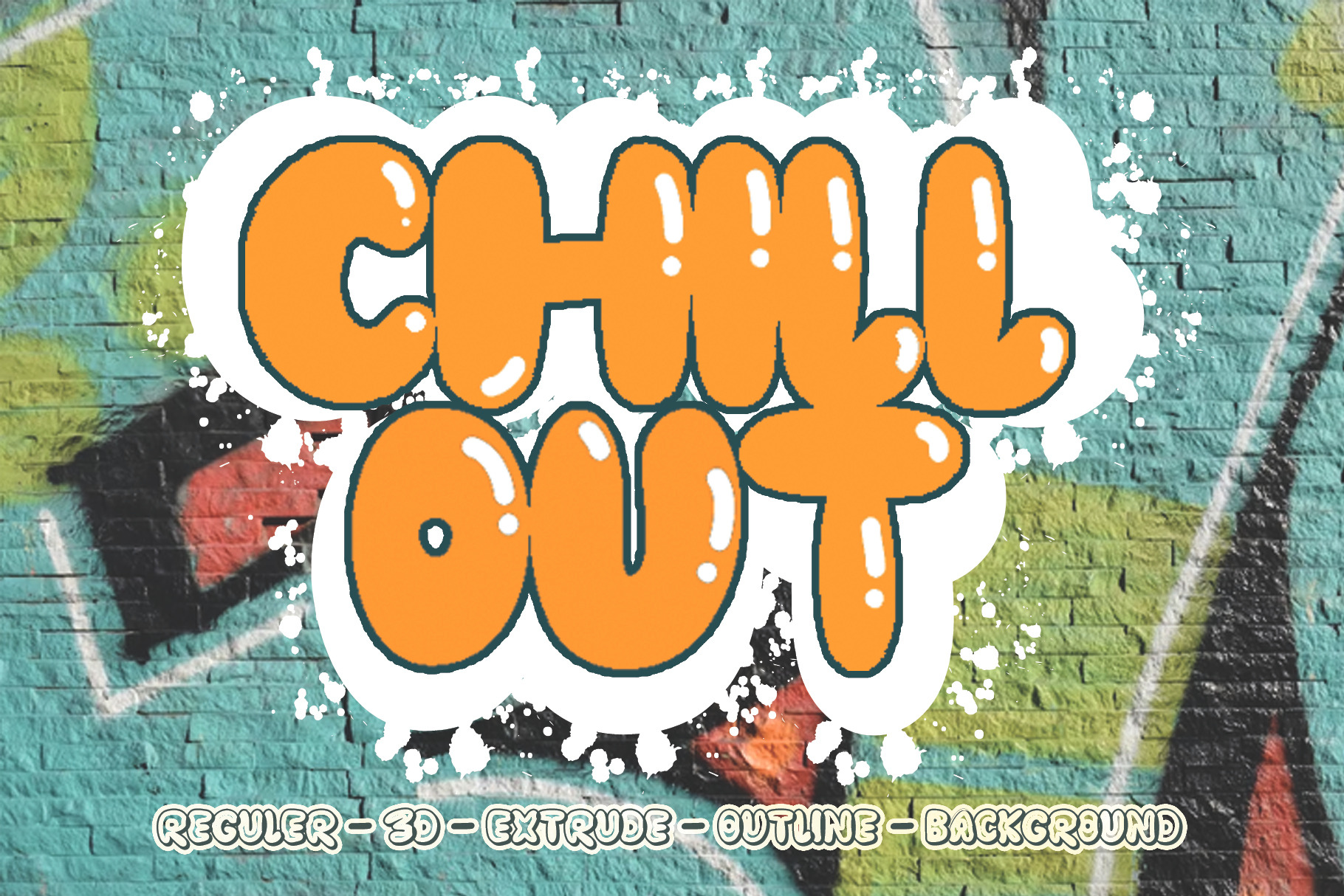
CHILLOUT - Display Font
CHILLOUT is a cute, cool, and friendly display font. A playful all-caps Display font that includes five versions of each letter which can be used separately or on top of each other to achieve a different look. This font is PUA encoded which means you can access all of the glyphs and alternates with ease! (please type the preview to see if I have what you need!)